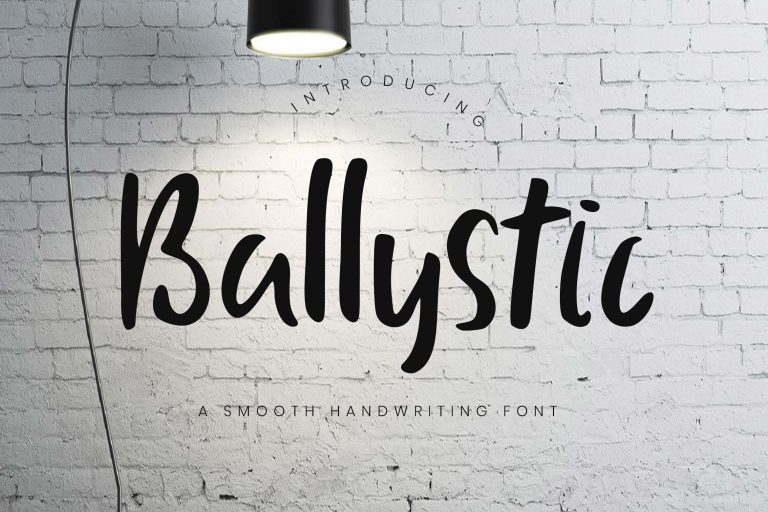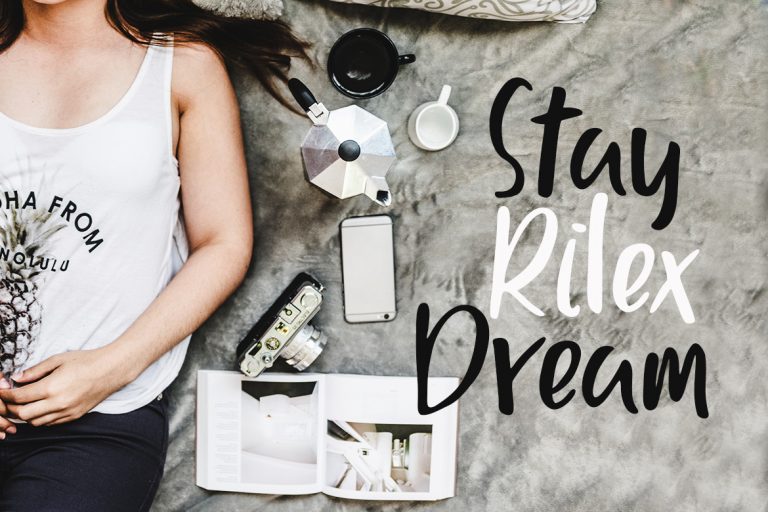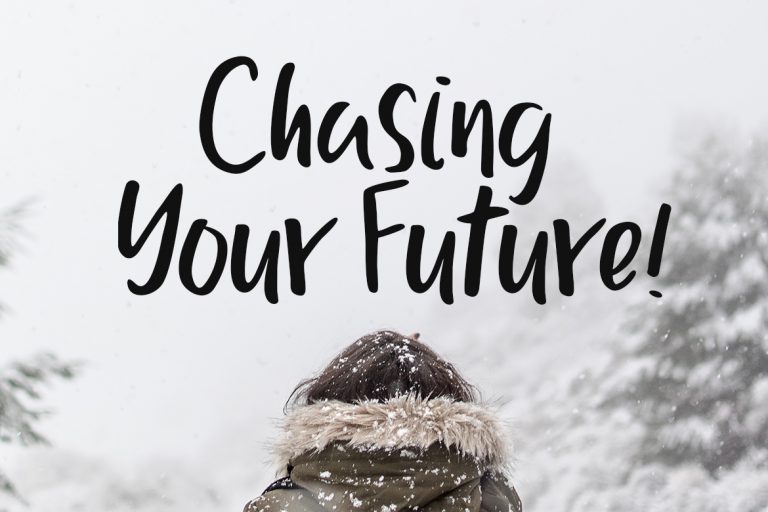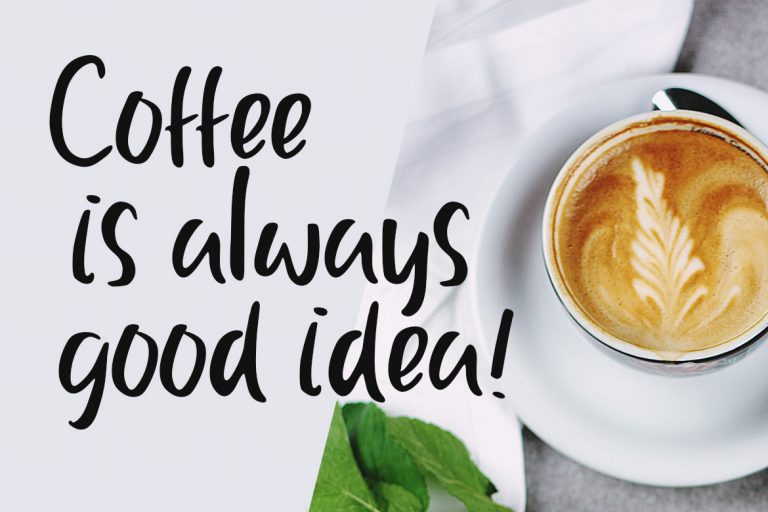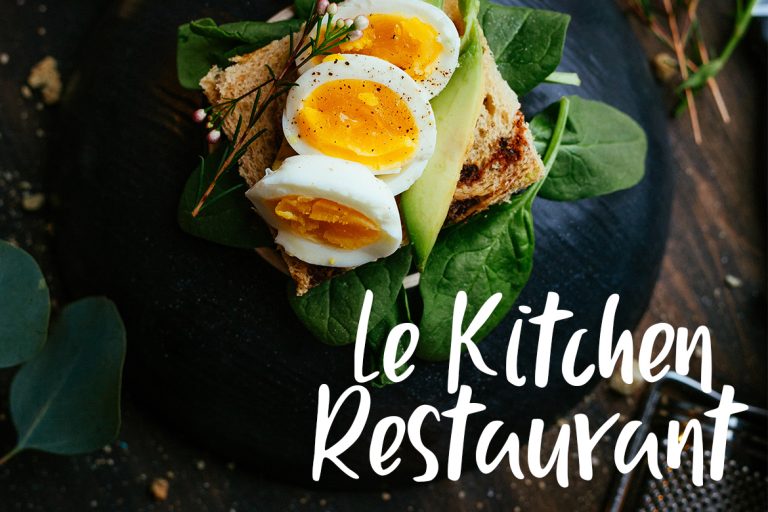
Ballystic Handwriting Typeface
Ballystic is beautiful and easy to read handwritten font. This font have smooth curves and lines, while maintaining the flair of brush script handwriting.
Ballystic is perfect for branding projects, logo, wedding designs, social media posts, advertisements, product packaging, product designs, label, photography, watermark, invitation, stationery and any projects that need handwriting taste.